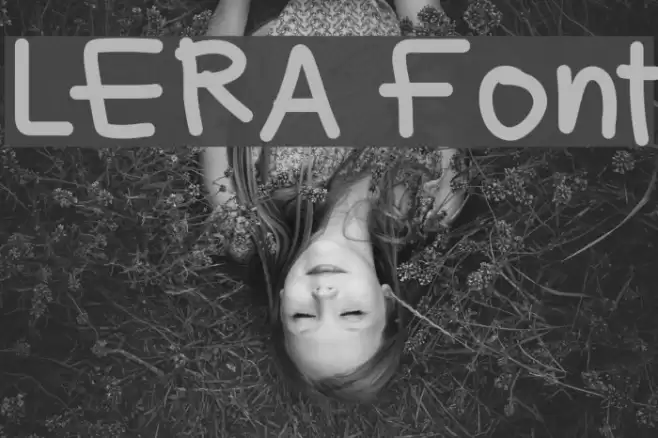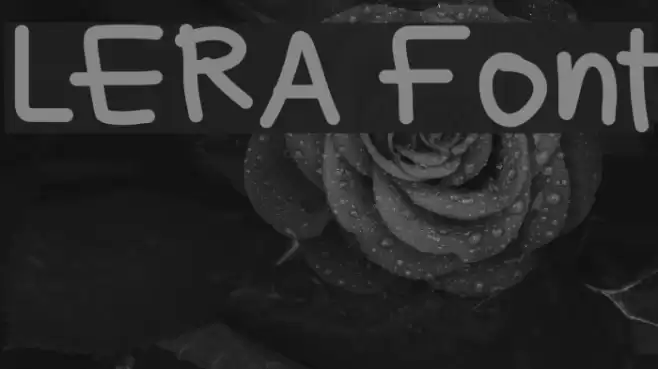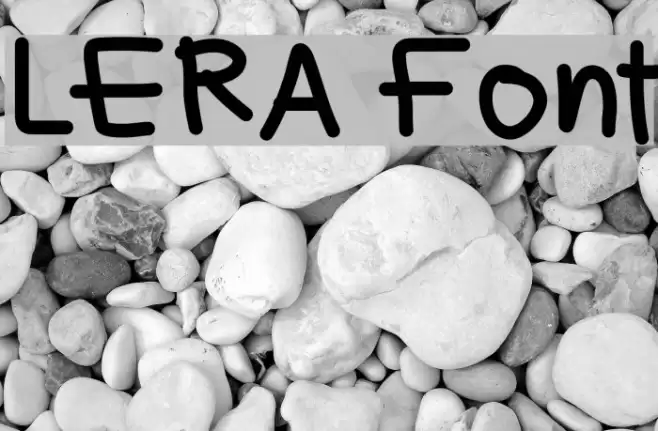
LERA Font
LERA Description
This playful and casual font features rounded, bold characters with a handwritten style. The uppercase and lowercase letters maintain a consistent flow, giving it a friendly and approachable appearance. The numerals are clear and easy to read, while the special characters complement the overall style. The font's informal nature makes it suitable for creative projects that require a personal touch. Its bold strokes and rounded edges provide a sense of warmth and accessibility, making it ideal for children's books, greeting cards, and informal branding.
A playful, handwritten font with rounded, bold characters from Handwritten fonts.
- Proposed Projects: Ideal for children's books, greeting cards, informal branding, and creative projects.
- Overall Style: Casual, Playful
- Use Case: Headlines, Logos, Informal Text